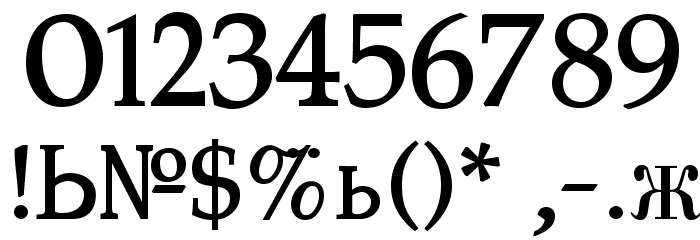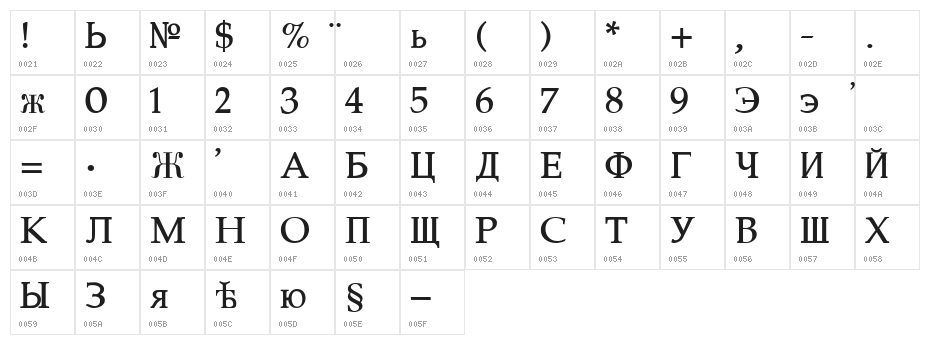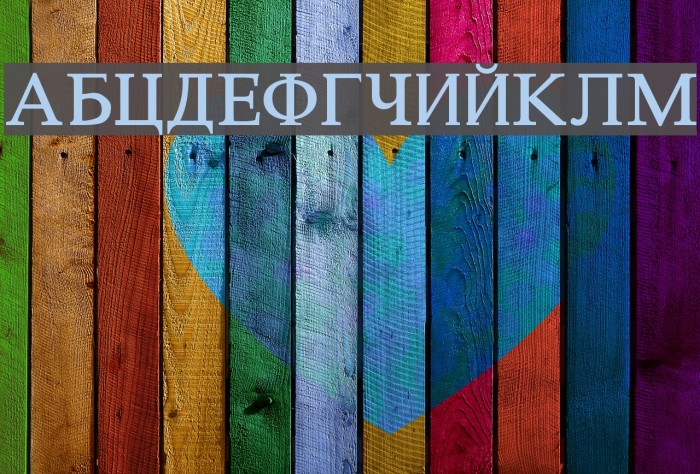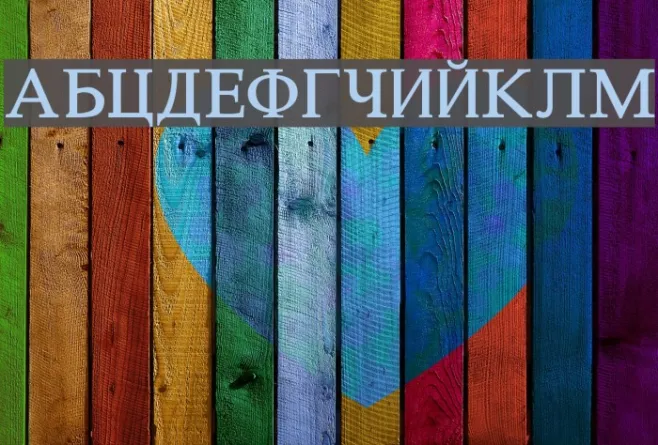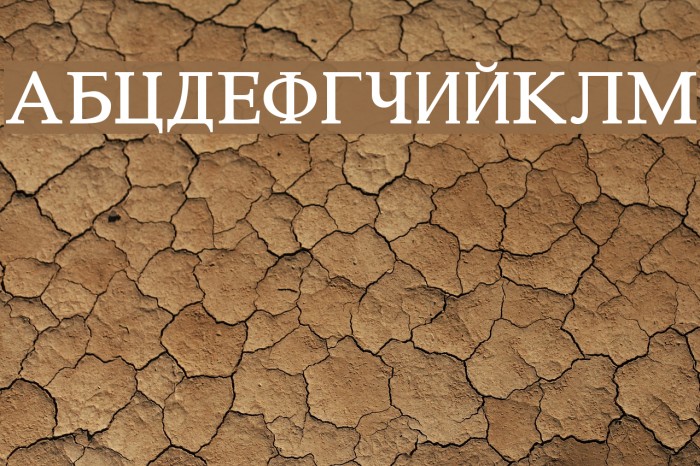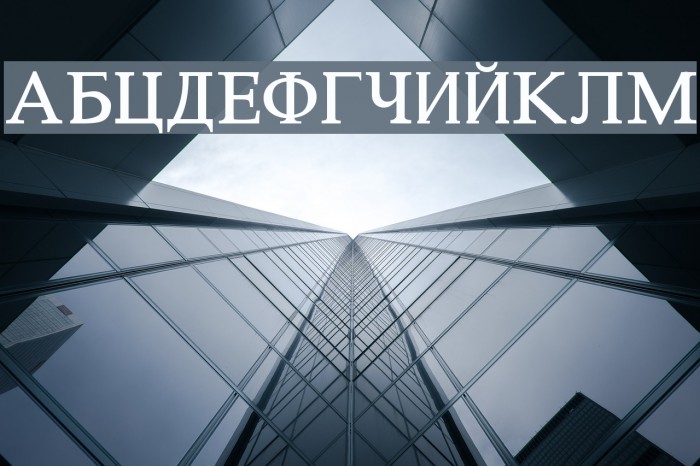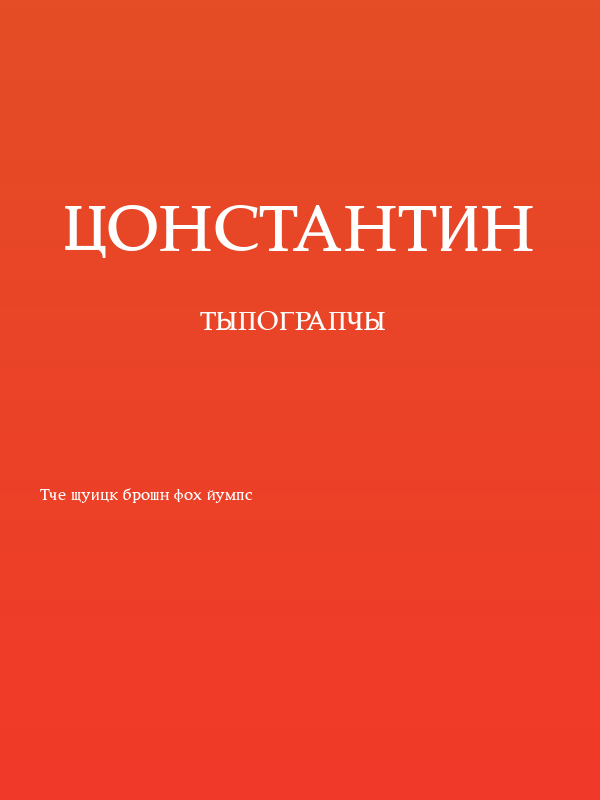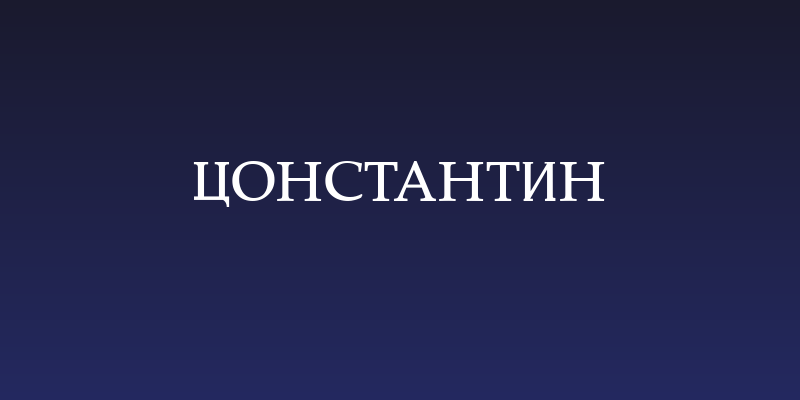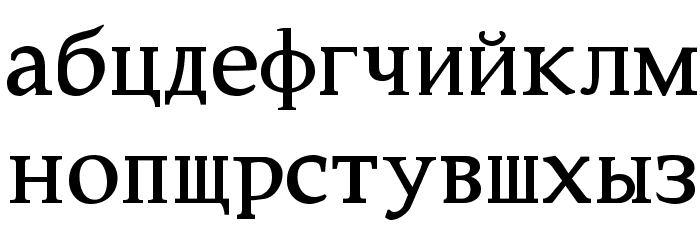
Constantin Font
Constantin Description
This font features a classic serif style with a strong presence and elegant curves. The uppercase letters are bold and commanding, while the lowercase letters maintain a consistent and harmonious flow. The numerals are clear and well-defined, making them easily readable. Special characters are included, adding versatility to the font. The overall design is traditional yet adaptable, suitable for a variety of uses where clarity and sophistication are desired.
| Proposed Projects | Ideal for formal documents, book titles, branding, and editorial design. |